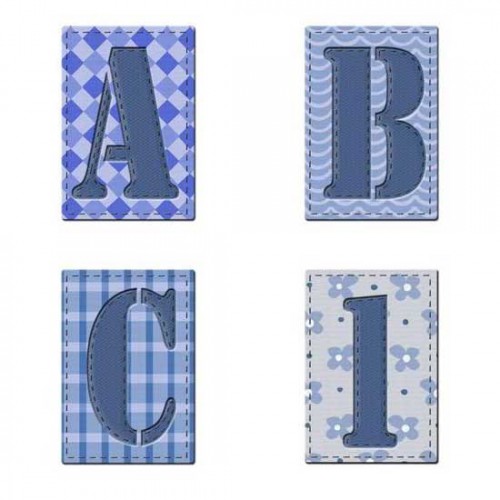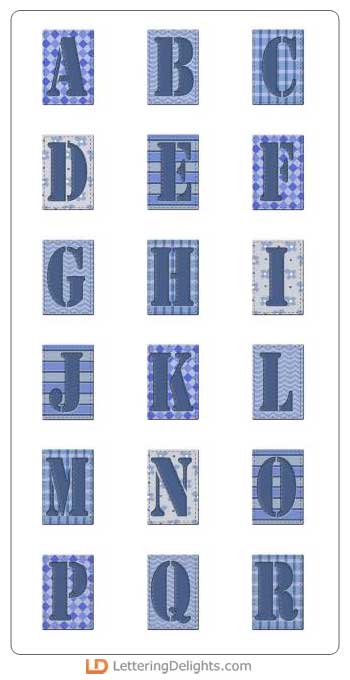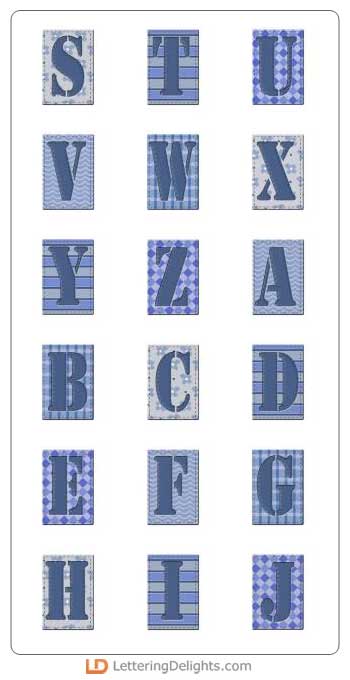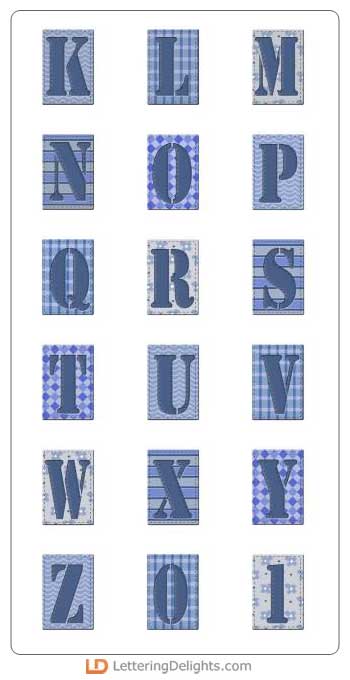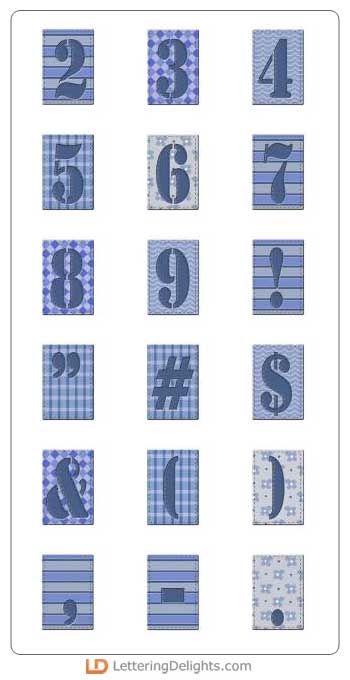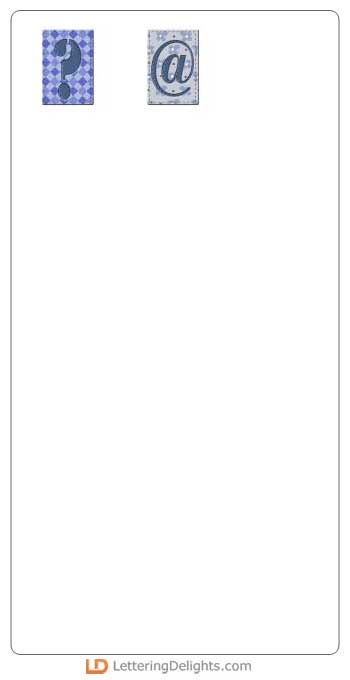
Create outstanding designs every time with ease. Denim Stencil alphabet is a stylish and versatile accompaniment to scrapbook pages and handmade cards. Stitched detail and pretty backgrounds lend a slightly rustic leather touch. Grab someone's attention on a flyer, newsletter, sign, program, invitation or announcement. This is lettering at its best!